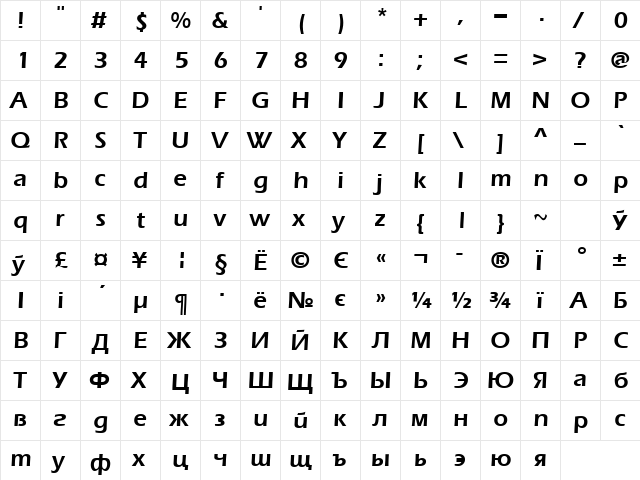
Everest-Demi Normal
Everest-Demi takes a measured approach to typography — its balanced proportions and neutral character make it a reliable workhorse for both digital and print work.